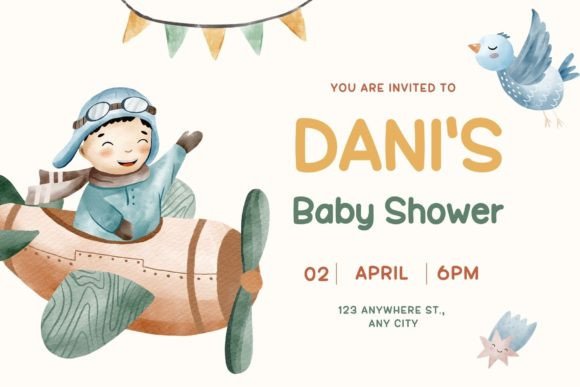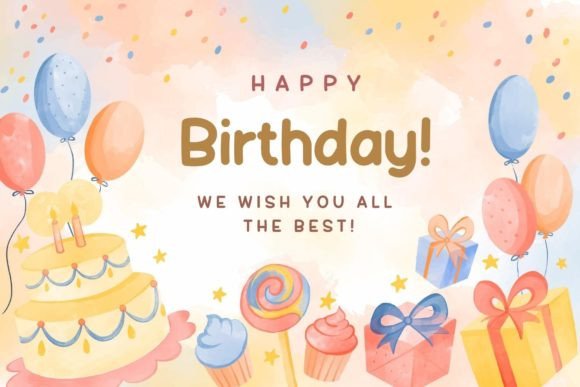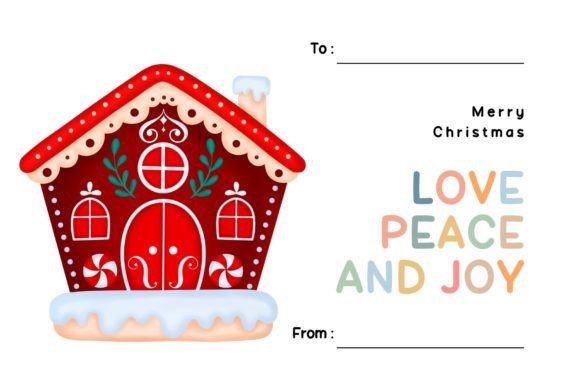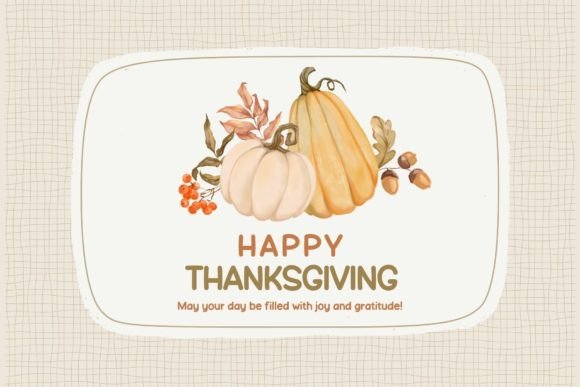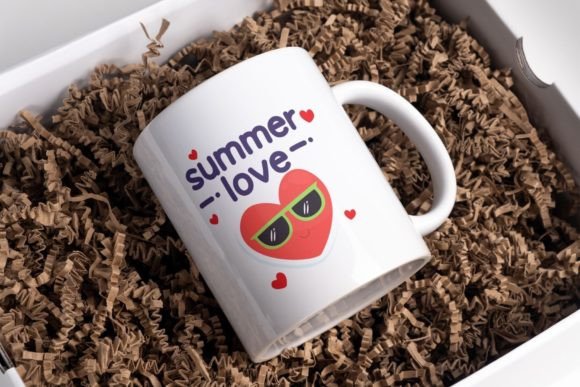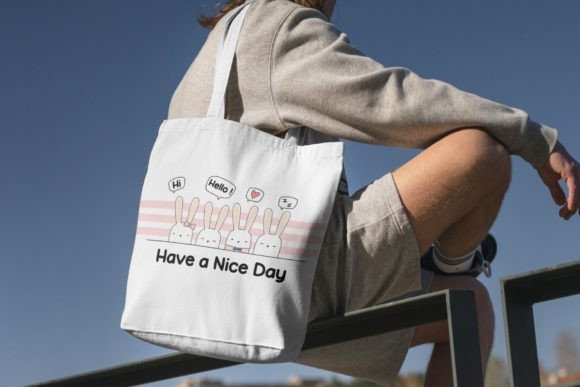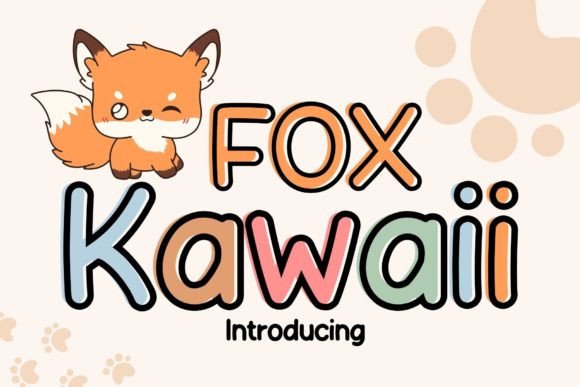
Introducing Fox Kawaii Font: The Ultimate Addition to Your Font Library
Are you a designer, crafter, or DIY enthusiast looking for a font that can add a touch of cuteness and fun to your creations? Look no further than Fox Kawaii Font! This adorable display font is perfect for a wide range of projects, from kid-friendly designs to festive decorations, and is sure to become an invaluable asset to your font library.
What is Fox Kawaii Font?
Fox Kawaii Font is a unique and playful display font that is designed to bring a smile to your face. Its cheerful vibe is infectious, making it perfect for designs that require a lighthearted and fun approach. Whether you’re working on a project for kids or adults, this font is sure to delight.
What Makes Fox Kawaii Font So Special?
So, what sets Fox Kawaii Font apart from other fonts? Here are just a few reasons why this font is a must-have for designers and crafters:
- Versatility: Fox Kawaii Font is incredibly versatile, making it suitable for a wide range of projects, from posters and wall art to stickers and nursery decorations.
- Cute and Fun: This font is designed to be cute and fun, making it perfect for kid-friendly designs, festival valentines, Mother’s Day cards, and more.
- Easy to Read: Despite its playful design, Fox Kawaii Font is easy to read, making it perfect for use in titles, headings, and other display text.
- Unique Style: Fox Kawaii Font has a unique style that is sure to make your designs stand out from the crowd.
Use Cases for Fox Kawaii Font
So, what can you use Fox Kawaii Font for? The possibilities are endless! Here are a few ideas to get you started:
- Kid-Friendly Designs: Fox Kawaii Font is perfect for designs aimed at kids, such as children’s books, nursery decorations, and kids’ party invitations.
- Posters and Wall Art: Add a touch of whimsy to your posters and wall art with Fox Kawaii Font.
- Stickers and Labels: Use Fox Kawaii Font to create adorable stickers and labels for your crafts and DIY projects.
- Festive Decorations: Fox Kawaii Font is perfect for festive decorations, such as Valentine’s Day cards, Mother’s Day gifts, and holiday-themed designs.
Tips for Using Fox Kawaii Font
Here are a few tips for getting the most out of Fox Kawaii Font:
- Pair with Other Fonts: Fox Kawaii Font pairs well with other fonts, so don’t be afraid to experiment with different combinations.
- Use in Moderation: While Fox Kawaii Font is cute and fun, it can be overwhelming if used excessively. Use it in moderation to create visual interest.
- Experiment with Colors: Fox Kawaii Font looks great in a variety of colors, so don’t be afraid to experiment with different hues and shades.